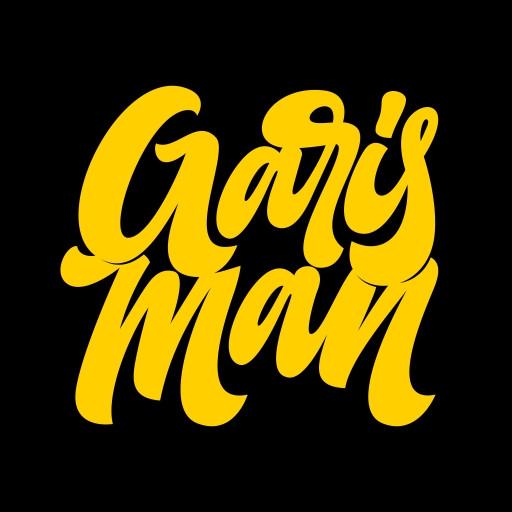
Fatient Font Description
Fatient is a cool, bold and thick lettered display font. No matter the topic, this font will be an incredible asset to your fonts’ library, as it has the potential to elevate any creation. This font is PUA encoded which means you can access all of the amazing glyphs and ligatures with ease!